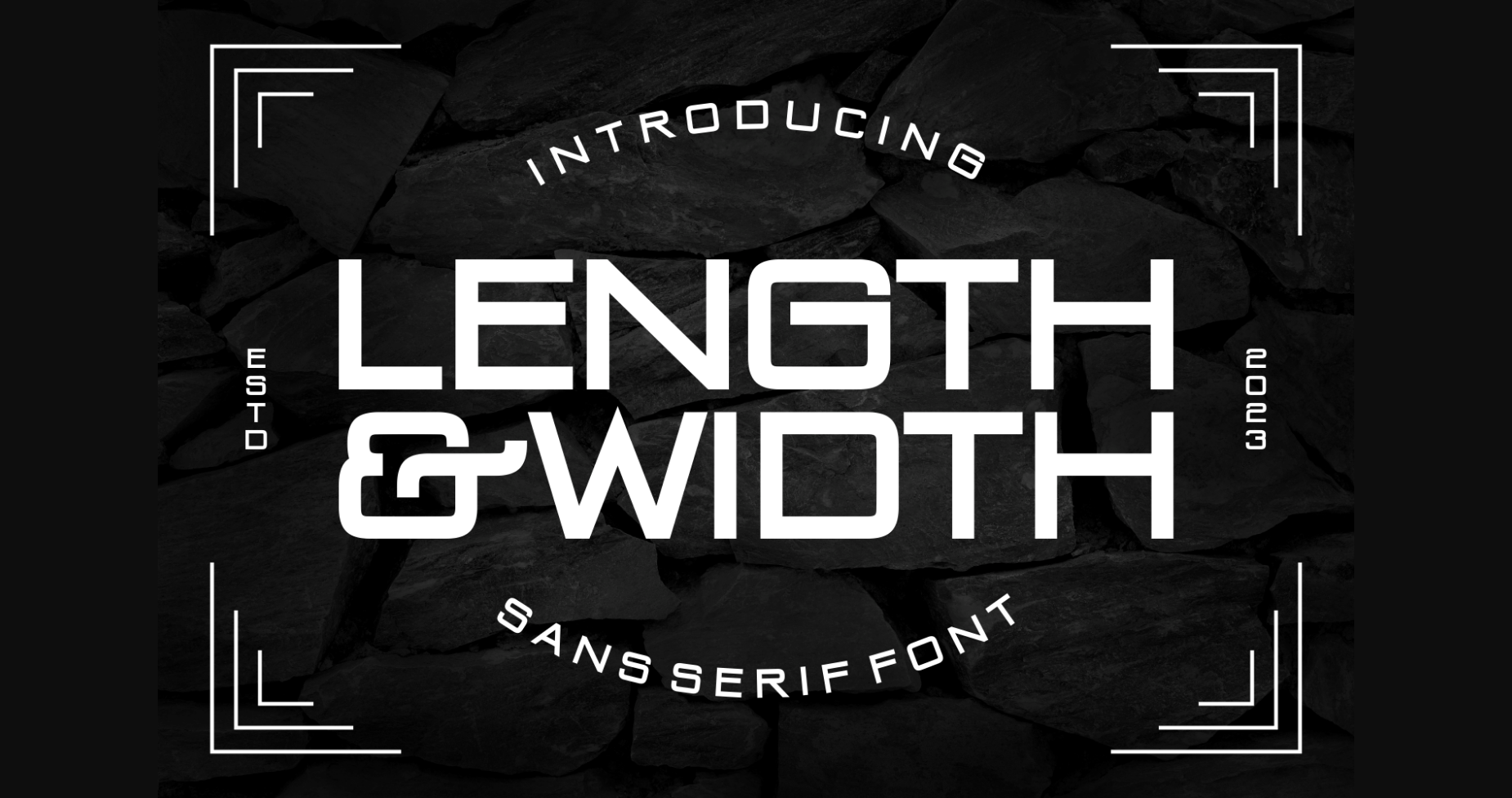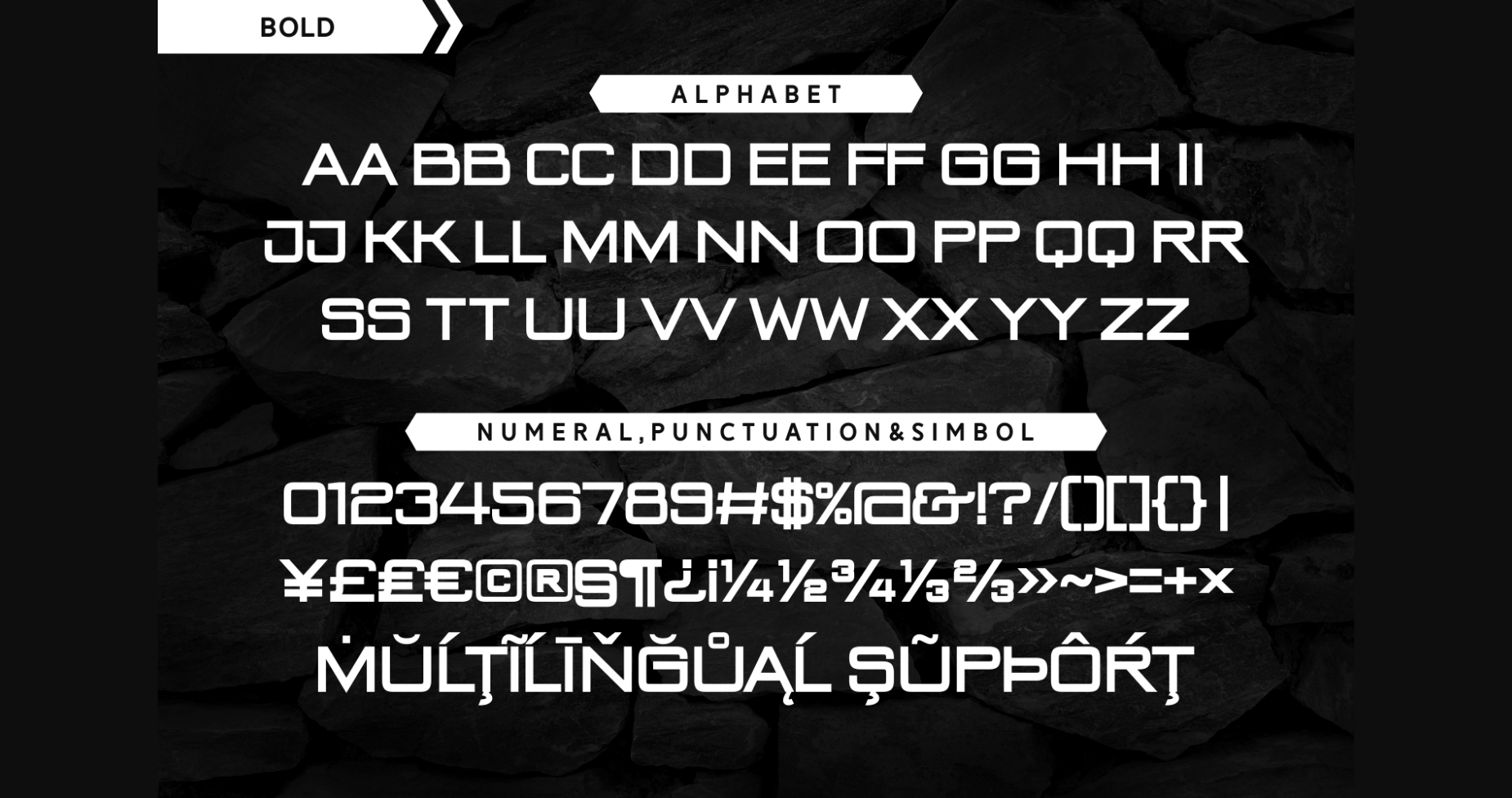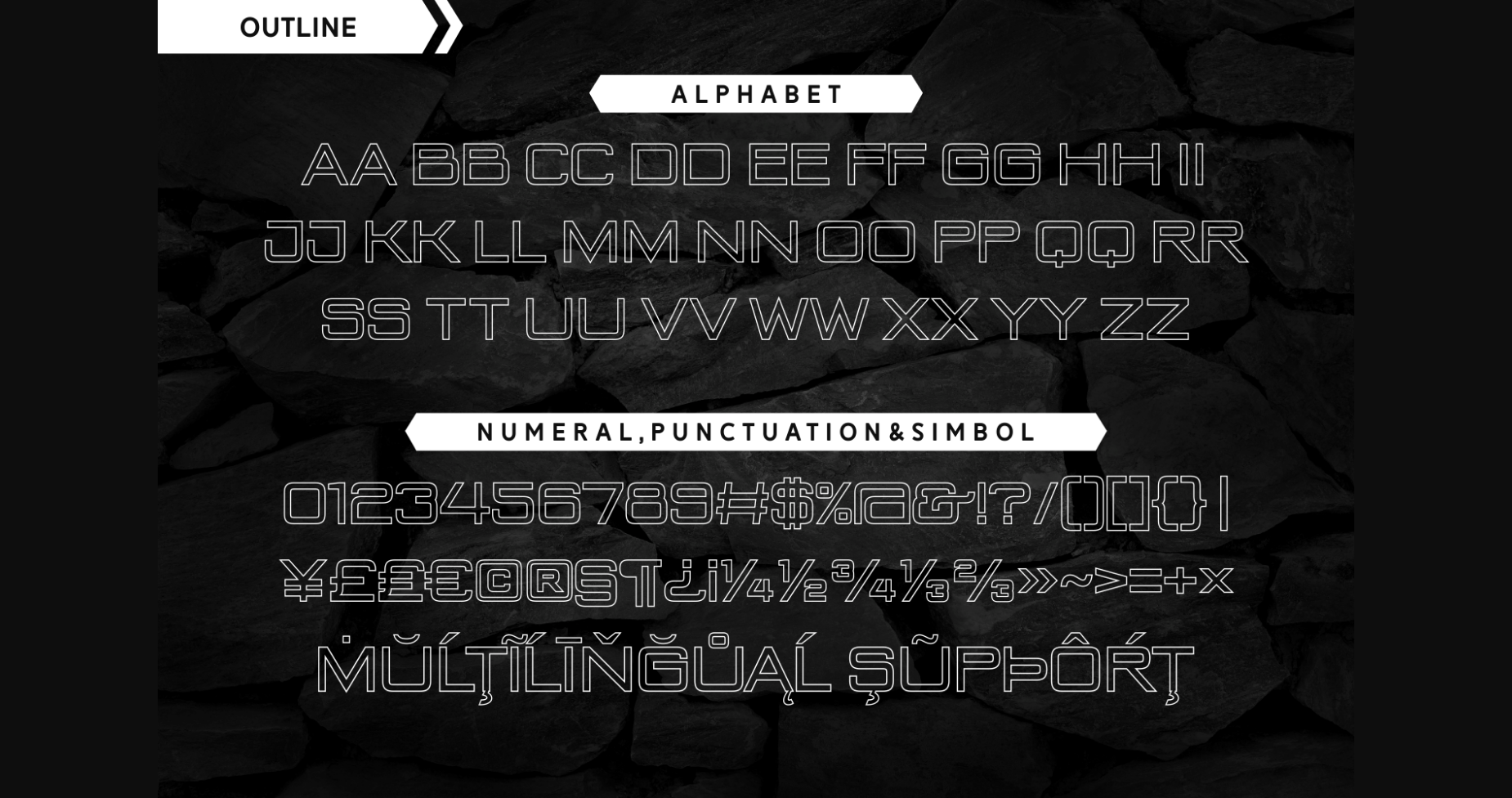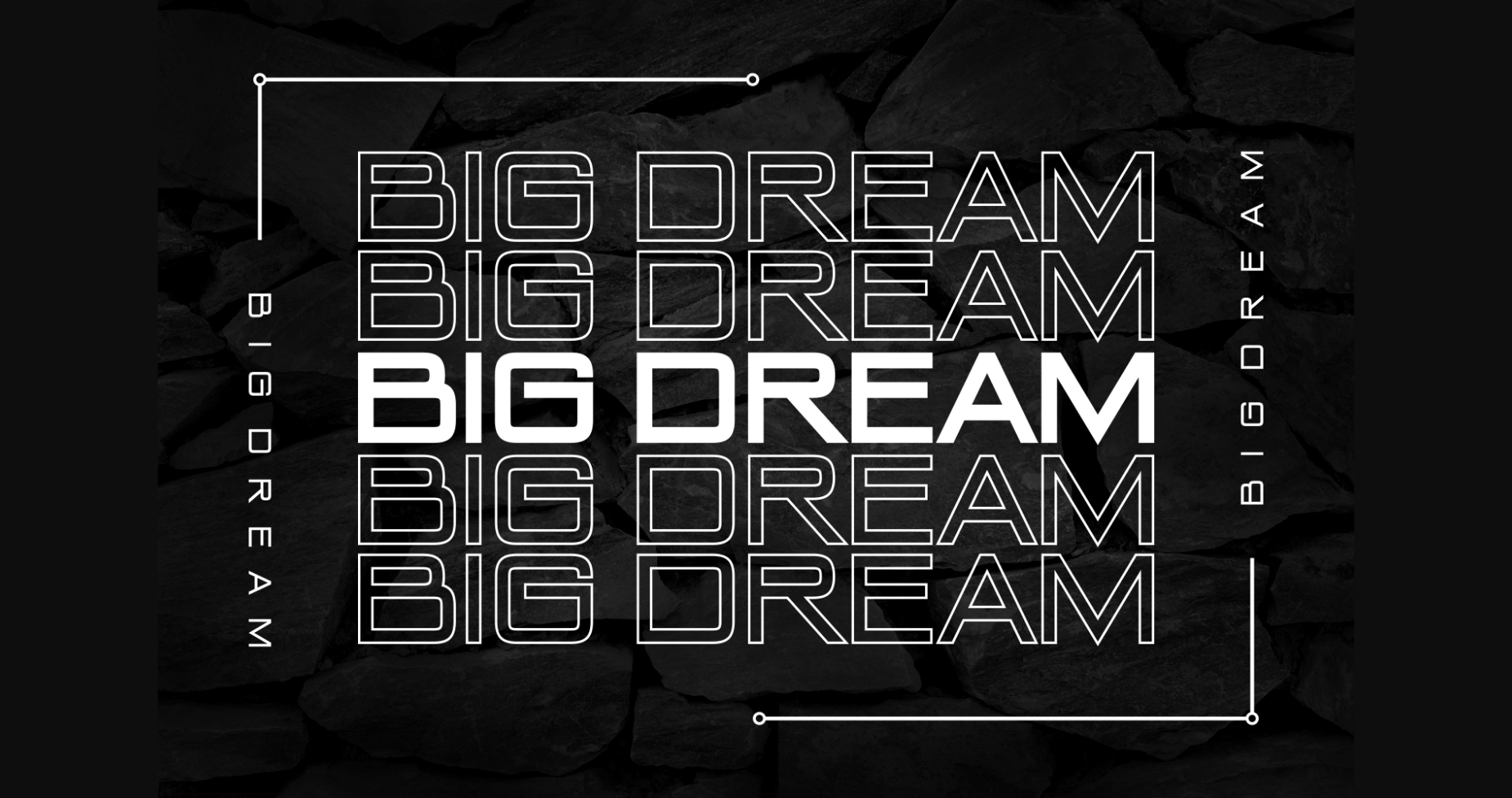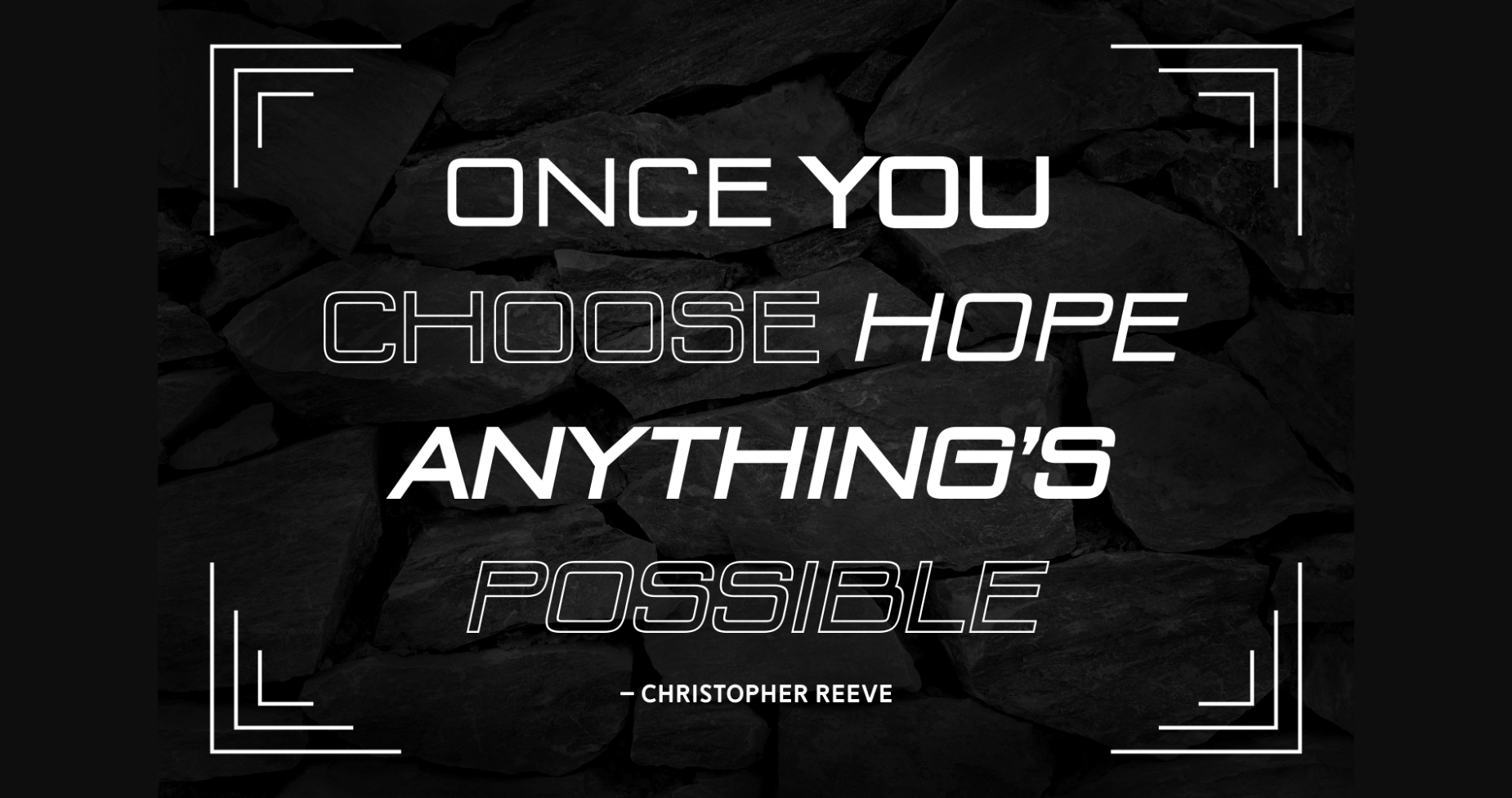
Length and Width Font
About Length and Width Font
Length And Width is an elegant and modern sans serif font. This minimalist and clean vibe can easily apply to your favorite designs such as book covers, magazines, social media posts, invitations, and so much more!